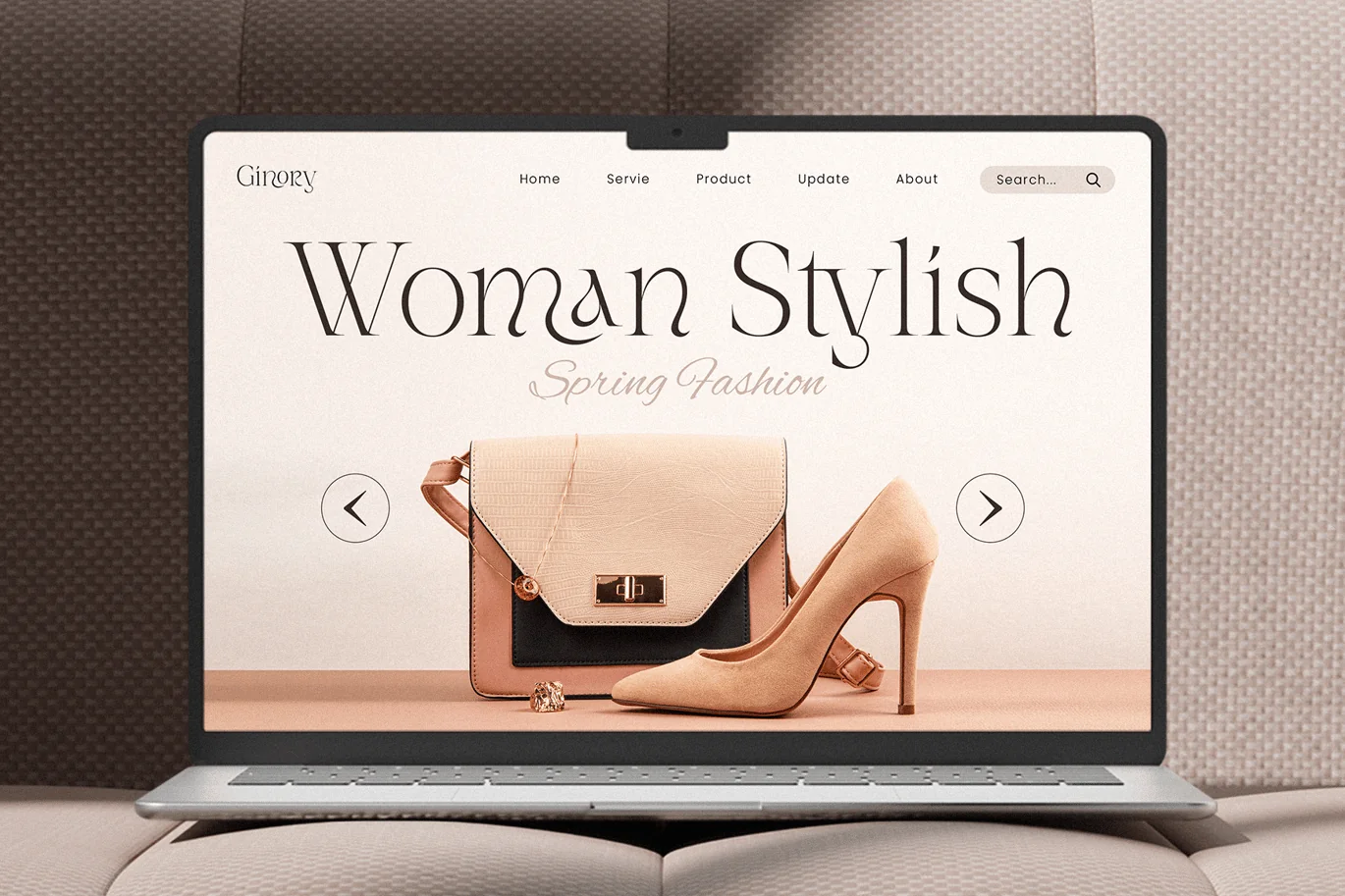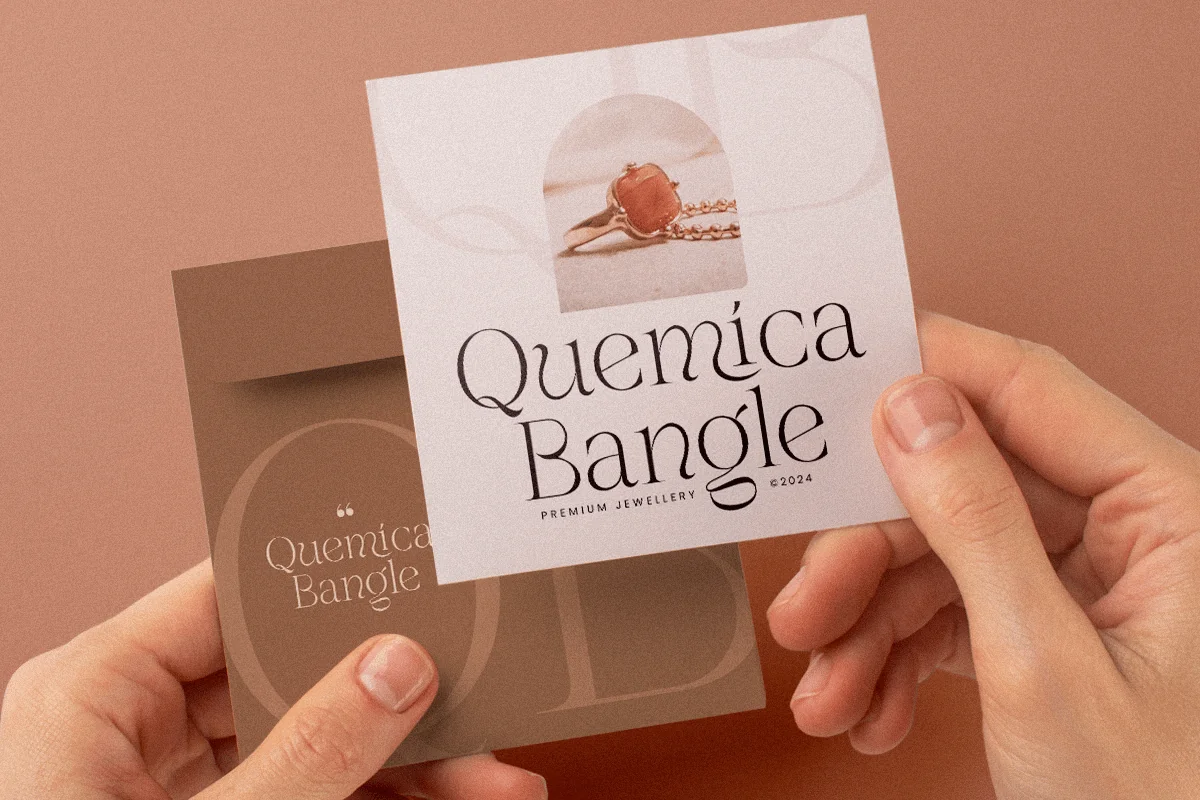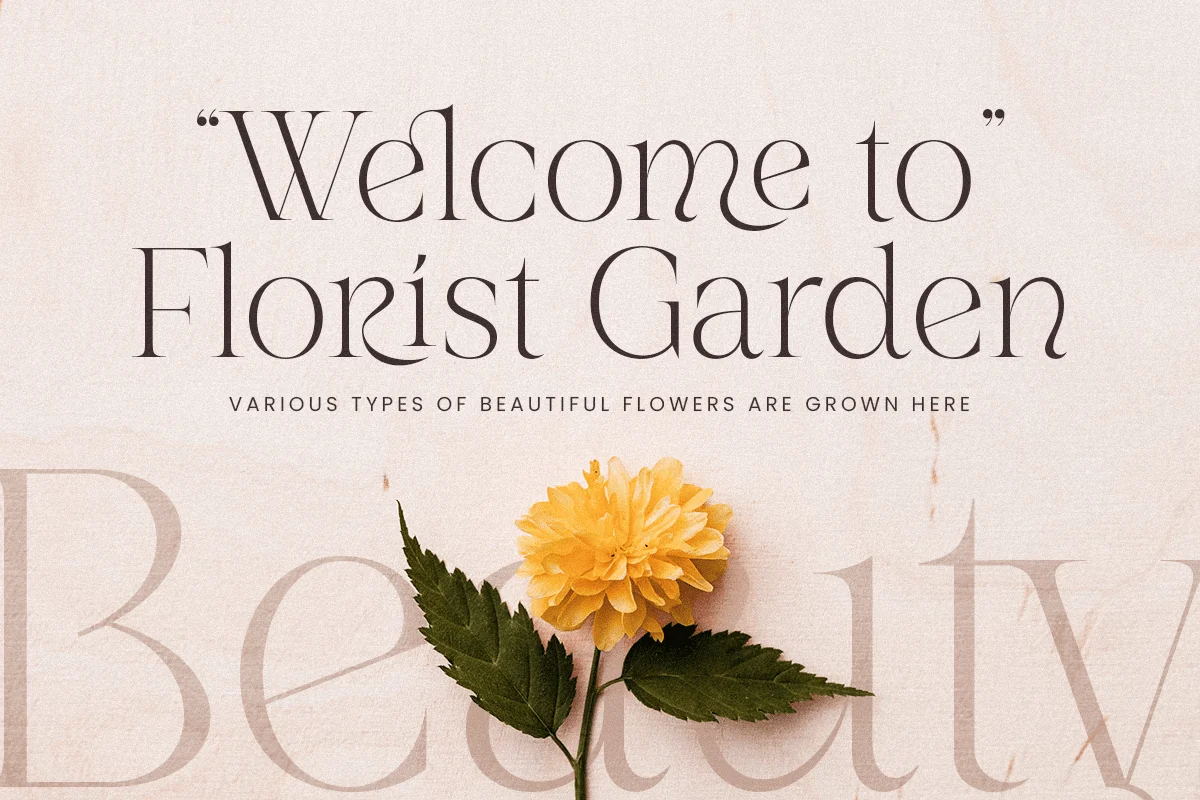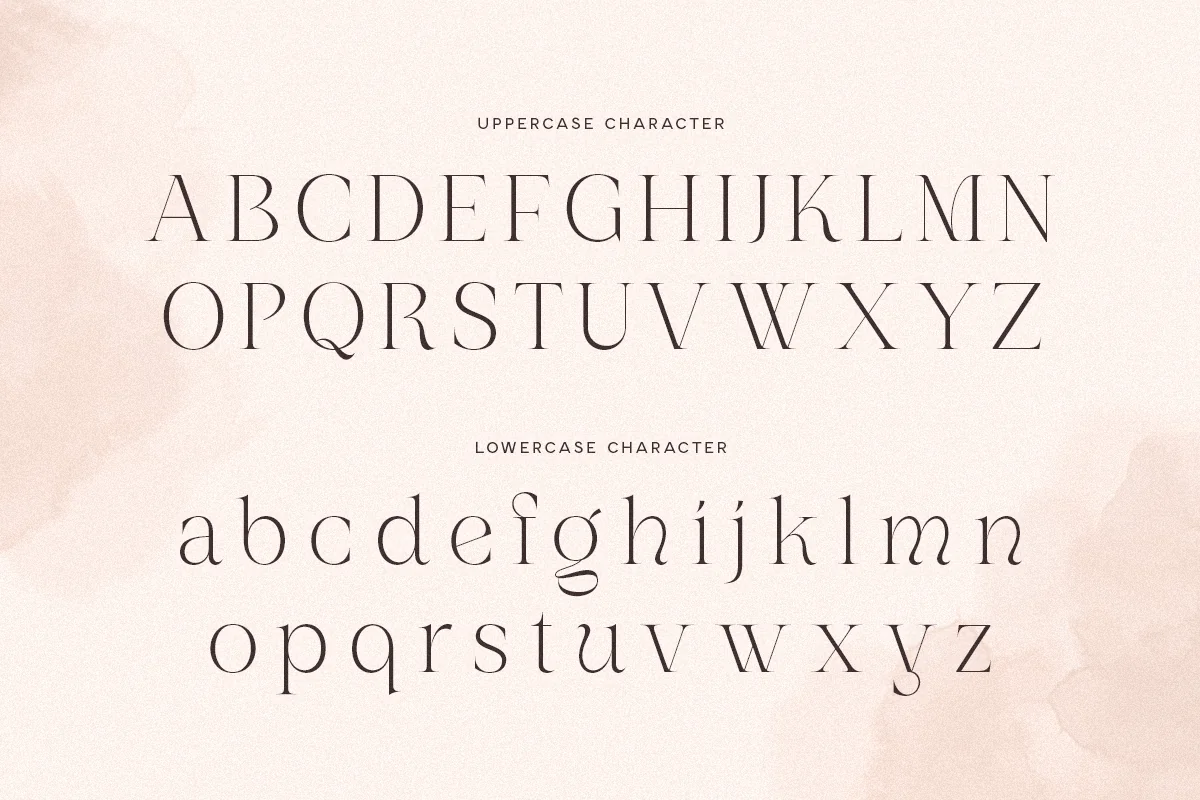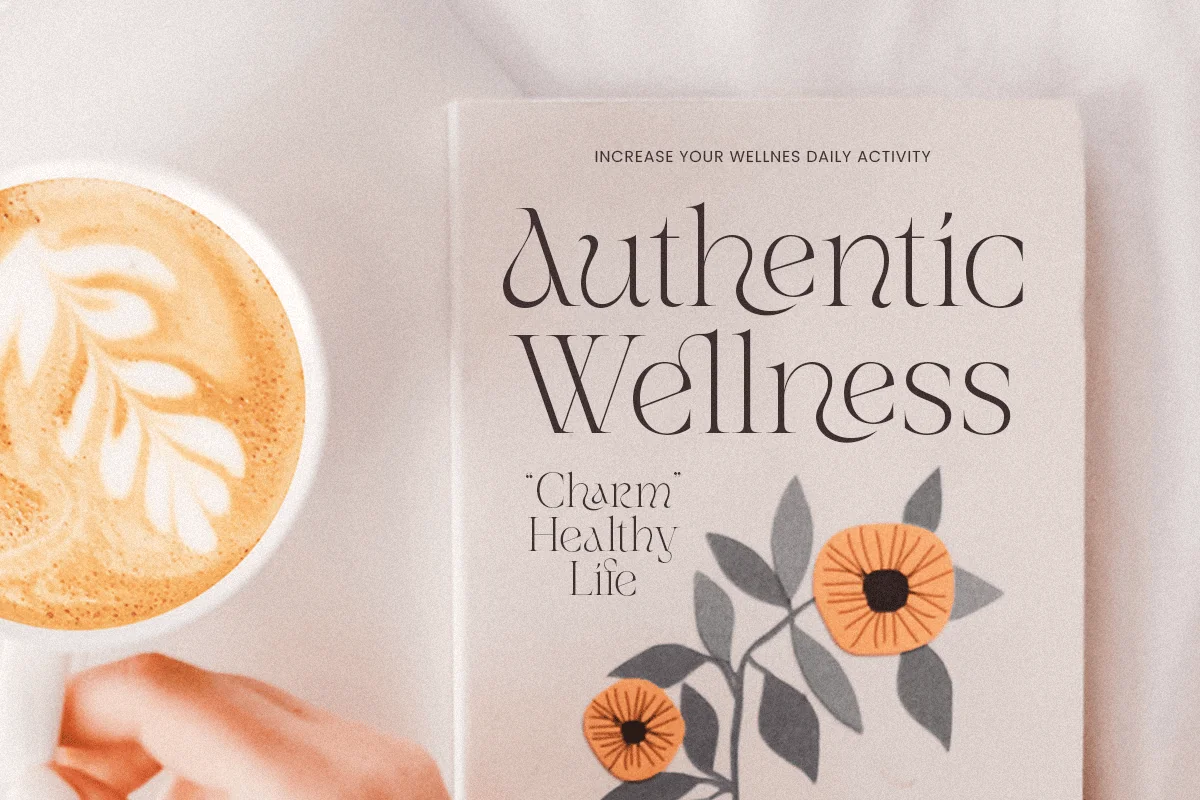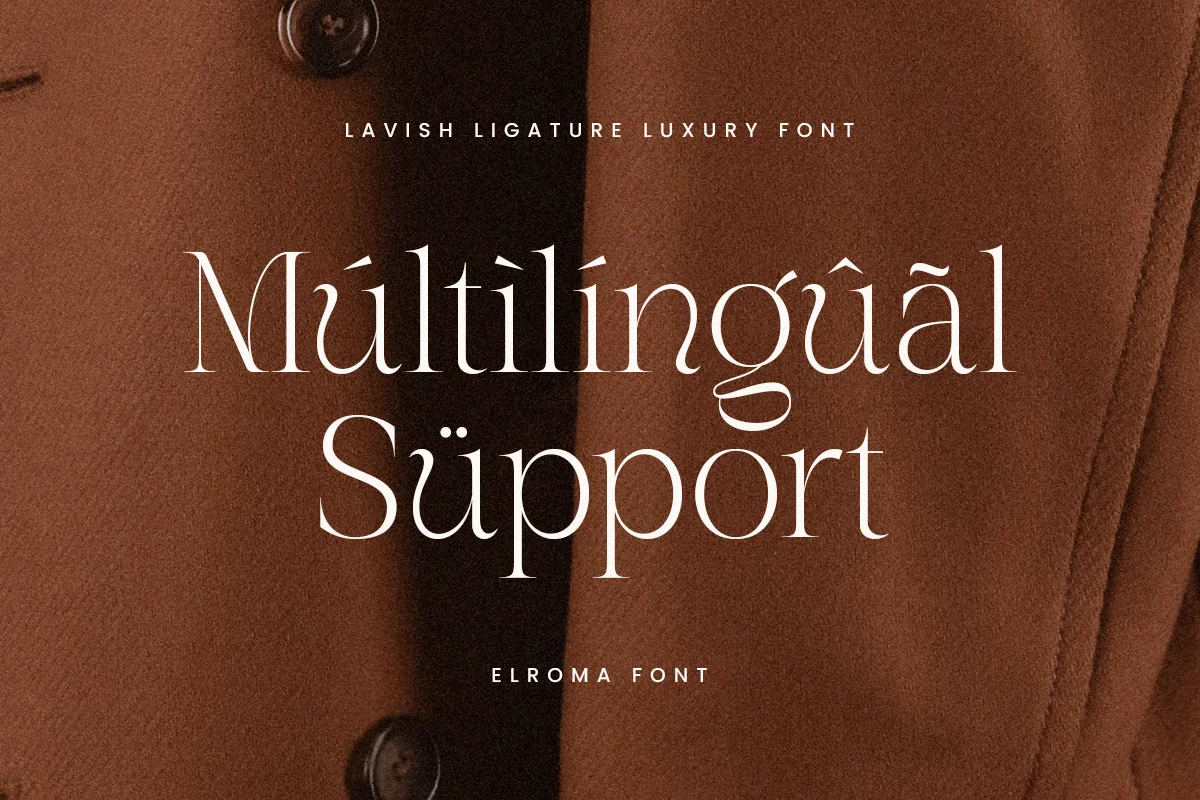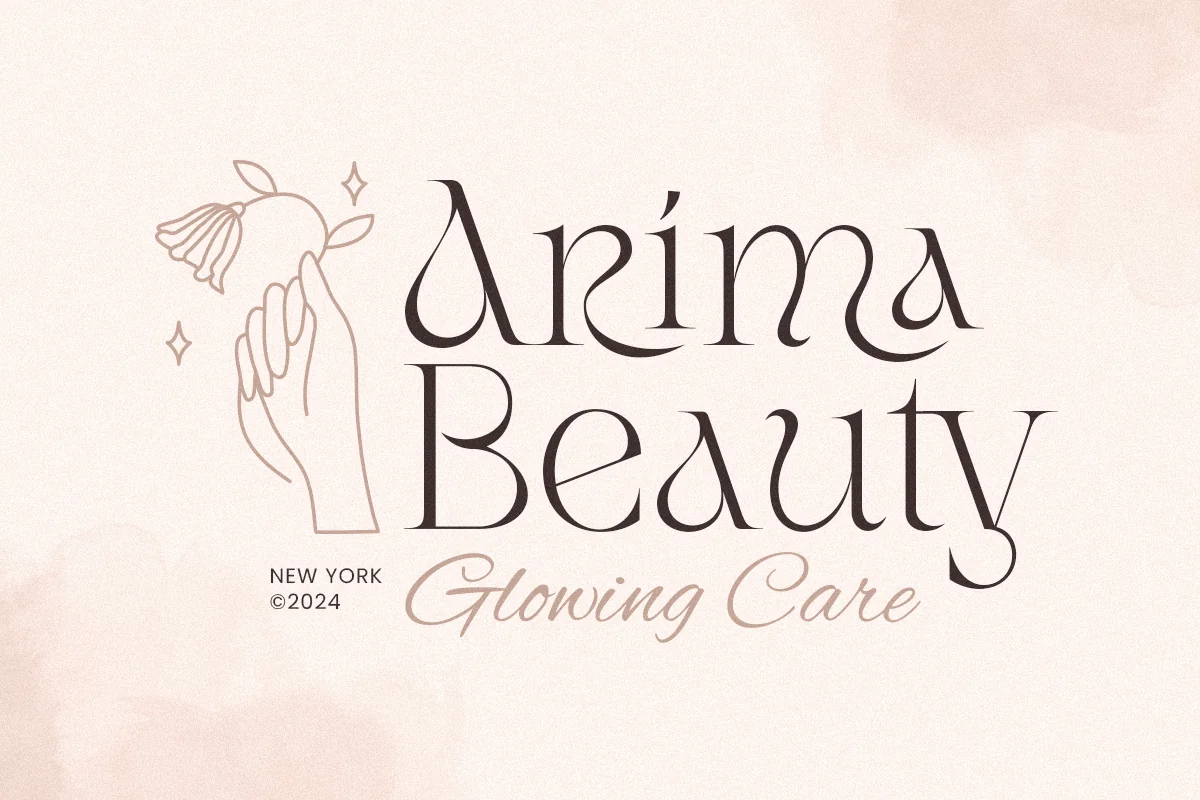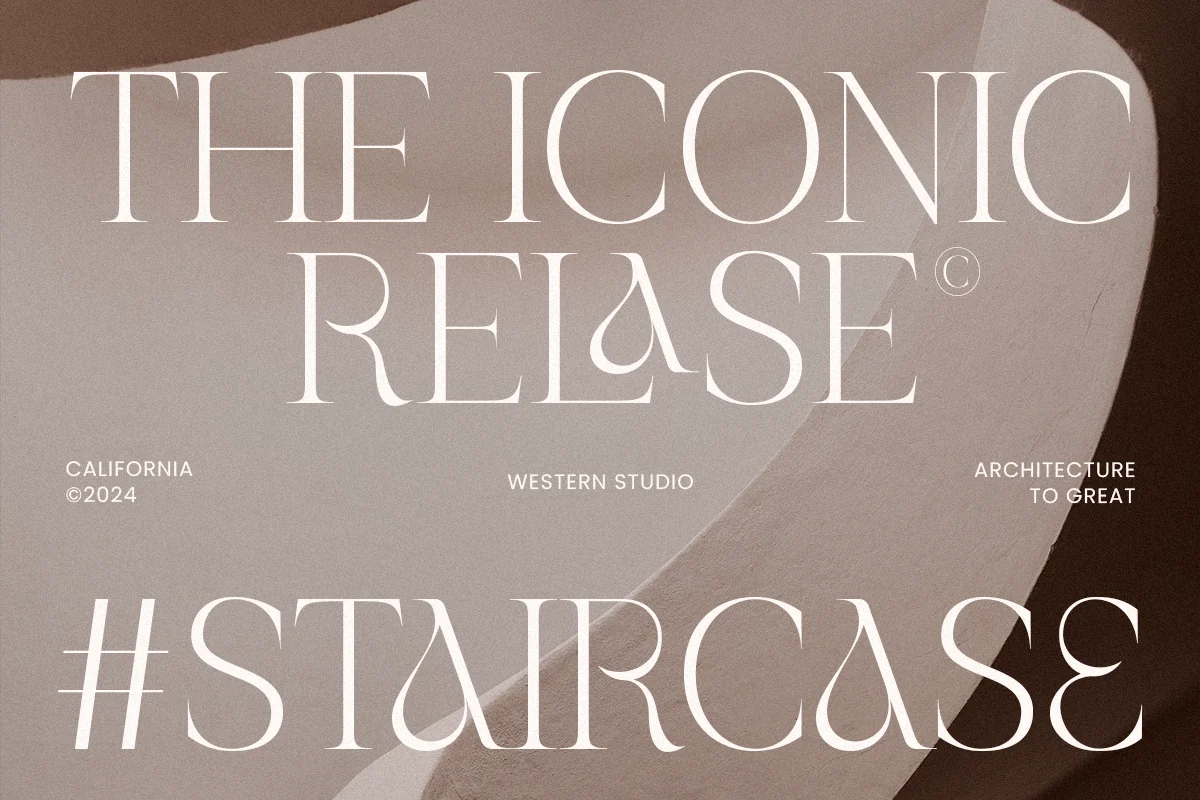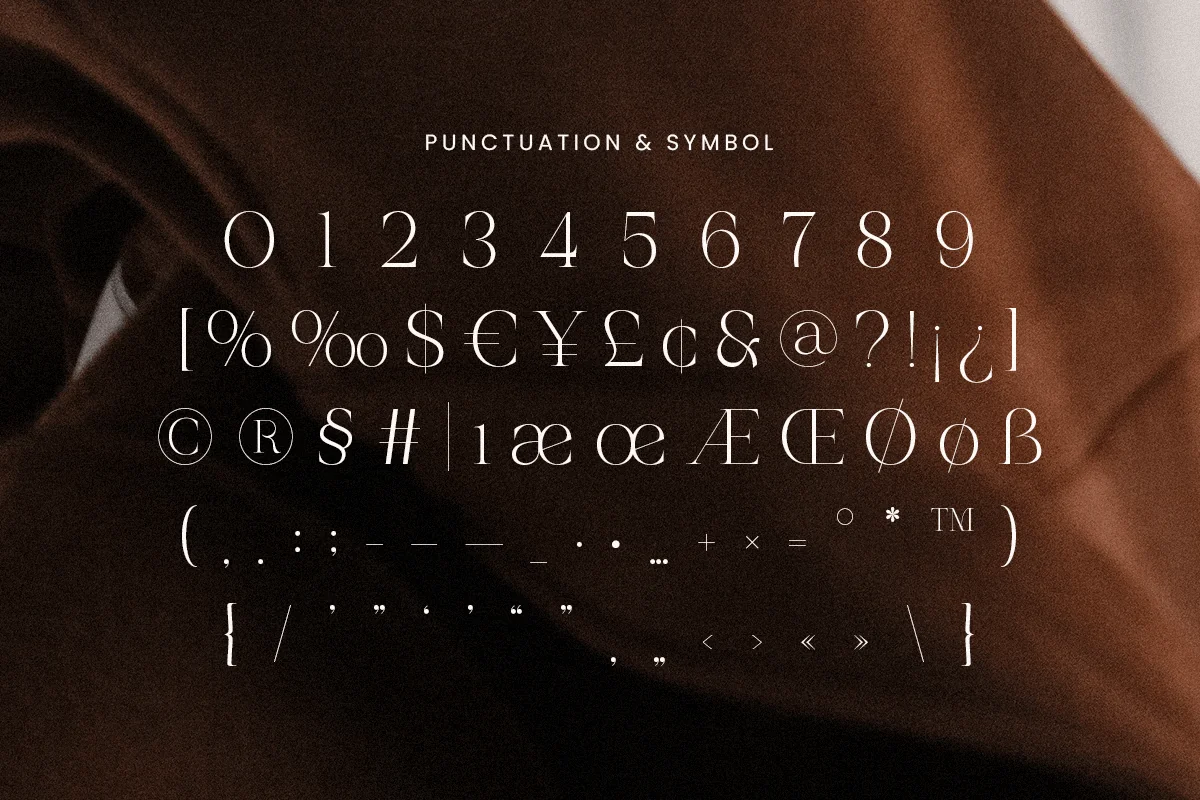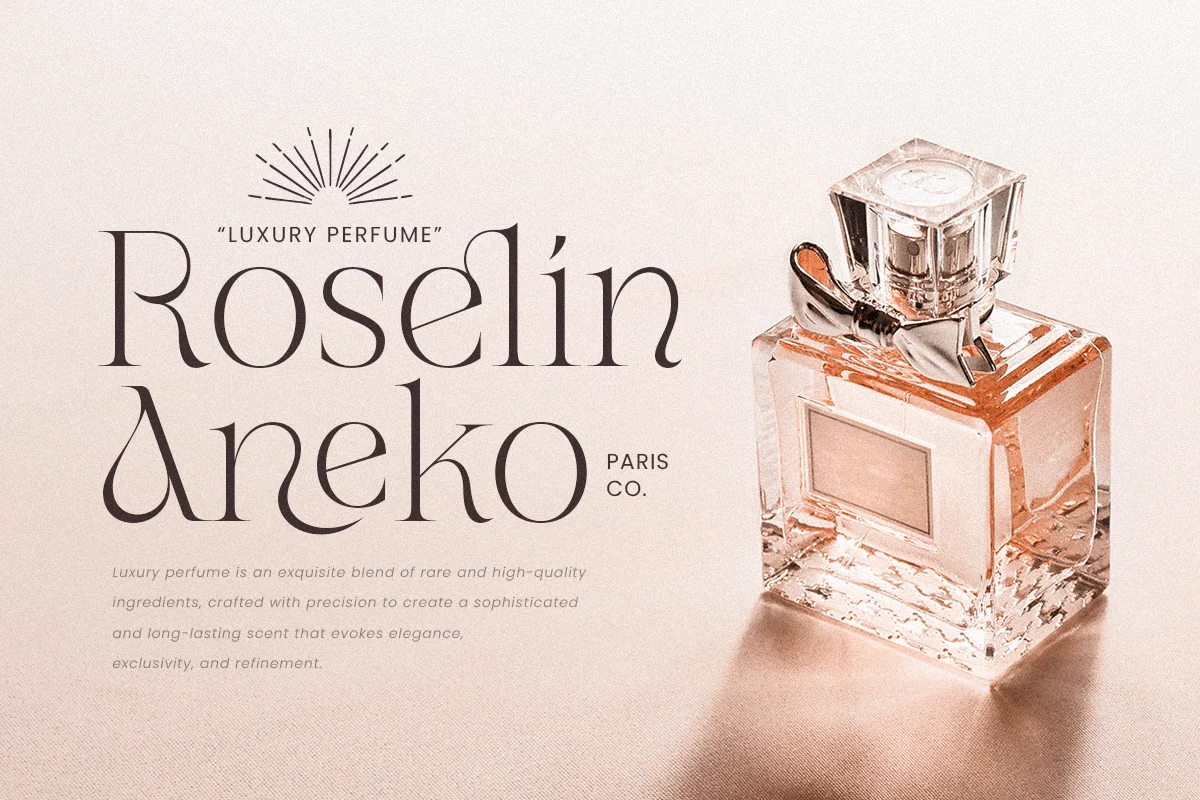
Elroma – Lavish Ligature Luxury Font
Elroma is a luxurious font crafted to bring elegance and sophistication to any project. Its carefully designed ligatures and lavish details make it perfect for high-end branding, fashion editorials, and upscale visual statements. Each character exudes elegance, creating a sense of timeless luxury that leaves a lasting impact.
Inspired by the world of luxury design, Elroma combines classic serif charm with contemporary styling. Its ligatures add a unique artistic touch, making it ideal for logos, invitations, and refined branding materials. This font effortlessly balances style with readability, providing an elevated, polished look that resonates across platforms.
Make a powerful impression with Elroma, a font designed to embody the essence of modern luxury. Perfect for both digital and print, it’s the go-to choice for brands that value quality and distinction in every detail.
Elroma Lavish Ligature Luxury Font Features:
- Elegant Ligature Characters for Enhanced Design
- Unique Punctuation, Number, and Symbol
Multilingual Characters available for:
Afrikaans, Albanian, Asu, Basque, Bemba, Bena, Breton, Chiga, Cornish, Dutch, English, Estonian, Filipino, Finnish, Friulian, Galician, German, Gusii, Indonesian, Irish, Italian, Kabuverdianu, Kalenjin, Kinyarwanda, Luo, Luxembourgish, Luyia, Machame, Makhuwa-Meetto, Makonde, Malagasy, Manx, Morisyen, North Ndebele, Nyankole, Oromo, Portuguese, Quechua, Romansh, Rombo, Rundi, Rwa, Samburu, Sango, Sangu, Scottish Gaelic, Sena, Shambala, Shona, Soga, Somali, Spanish, Swahili, Swedish, Swiss.